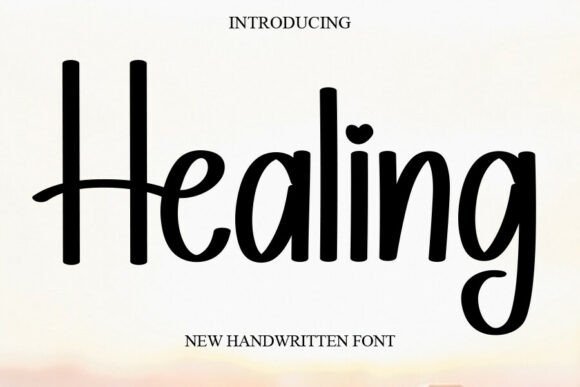
The Perfect Recipe for Charming Design: Introducing Healing Font
Have you ever spent hours brainstorming the perfect design for a client, only to feel like something’s missing? You know, that special ingredient that elevates your creation from good to great? For designers, finding the right font can be just that elusive ingredient. Imagine a font that exudes warmth, friendliness, and a touch of whimsy – a font that makes your design feel like it was handwritten just for your audience.
Enter Healing Font, a beautiful, tall, and sweet handwritten font designed to bring a charming, handcrafted touch to your projects. Whether you’re working on a bakery branding, food blog, or birthday invitation, Healing Font is the perfect addition to your design toolkit. With PUA encoding, you can easily access all its stylistic features and extras, making it a valuable asset for designers who want to add personality to their work without overwhelming their design.
Healing Font Key Features
- Unique Character Set: The Healing Font features a unique set of characters, including a comprehensive set of Latin, Greek, and Cyrillic alphabets, as well as a range of special characters and symbols.
- Emotional Expressiveness: This font is designed to evoke emotions and convey a sense of warmth and comfort, making it perfect for use in therapeutic settings, self-help materials, and inspirational content.
- Professional and Elegant Design: The Healing Font boasts a clean and elegant design, making it suitable for use in a variety of contexts, from business and marketing materials to educational and artistic projects.
- Scalability: This font is designed to be highly scalable, allowing it to be used effectively in a range of contexts, from small text to large headings and titles.
Healing Font Review
Overall, I’m impressed with the unique aesthetic of Healing Font. ✨ The combination of clean lines, rounded edges, and subtle curves creates a soothing atmosphere, perfect for healthcare and wellness-related projects. The font is highly legible, making it an excellent choice for body text.
While Healing Font excels in many areas, there are a few limitations to consider:
- ⚠️ The font may not be the best choice for high-impact, attention-grabbing headlines, as its gentle nature can make it blend into the background.
- ⚠️ Some users may find the font’s rounded edges and subtle curves too subtle, leading to readability issues in certain contexts.
Overall, Healing Font is a solid choice for designers working on healthcare, wellness, or spa-related projects. While it may not excel in every situation, its unique aesthetic and versatility make it a valuable addition to any designer’s toolkit.
Practical Application Guide for Healing Font
Tips for Getting the Most Out of the Healing Font
Use the Healing Font in combination with calming colors and imagery to create a soothing atmosphere.
Use the Healing Font to create quotes, captions, or headings that add a touch of calmness to your design.
The Healing Font is ideal for creating calming and soothing designs for:
Wellness and self-care materials.
Meditation and mindfulness guides.
Relaxing and calming websites or social media posts.